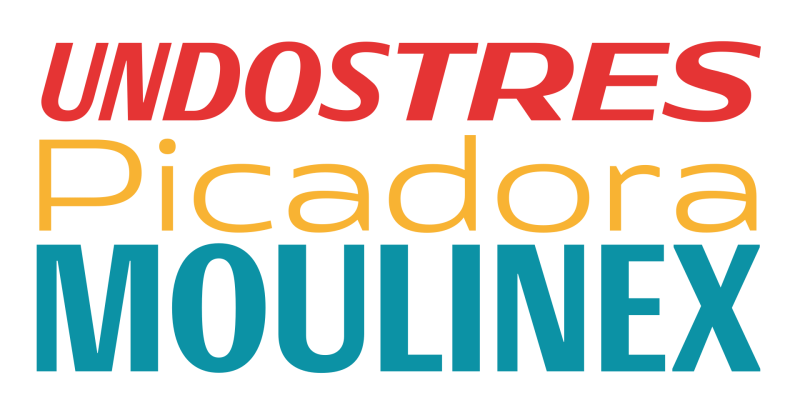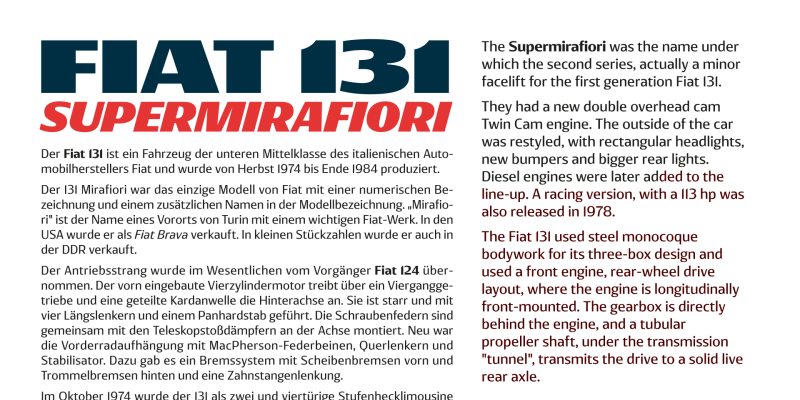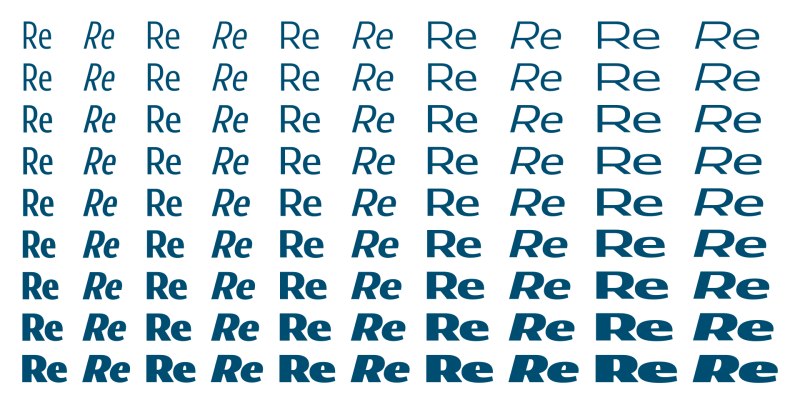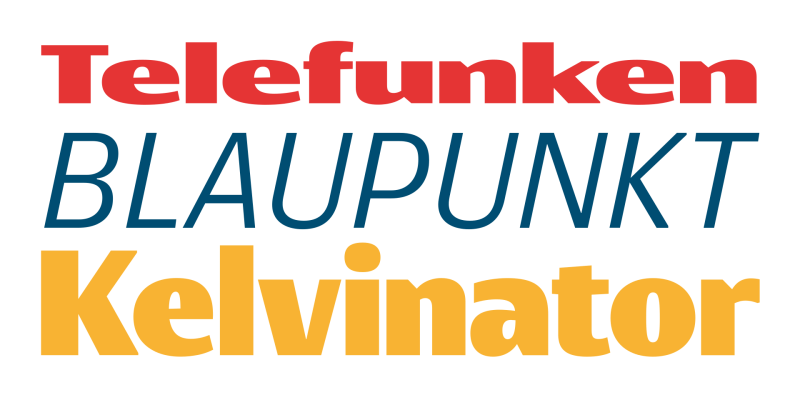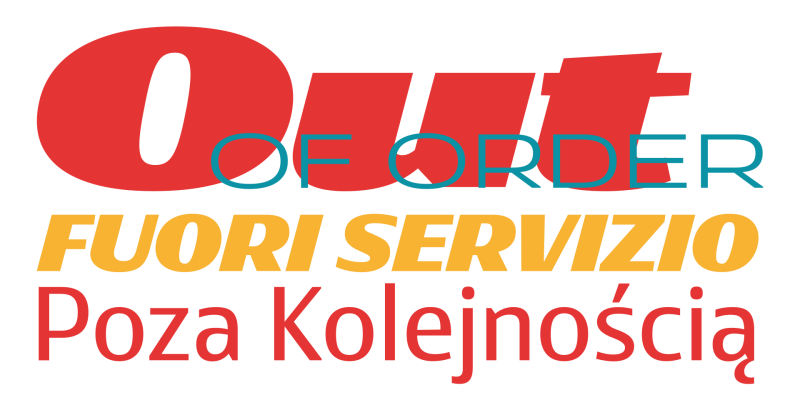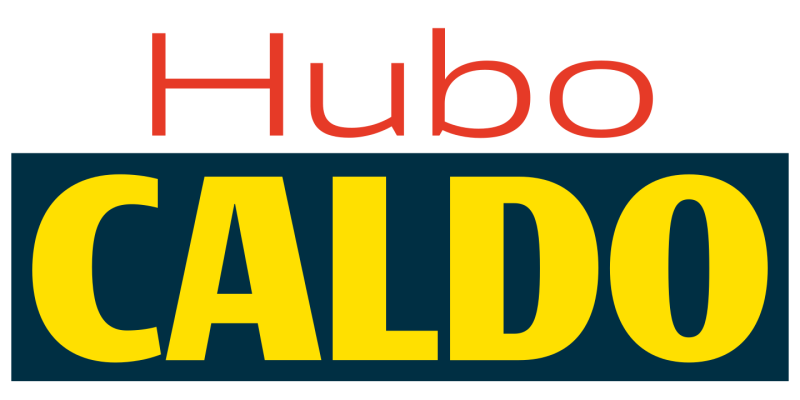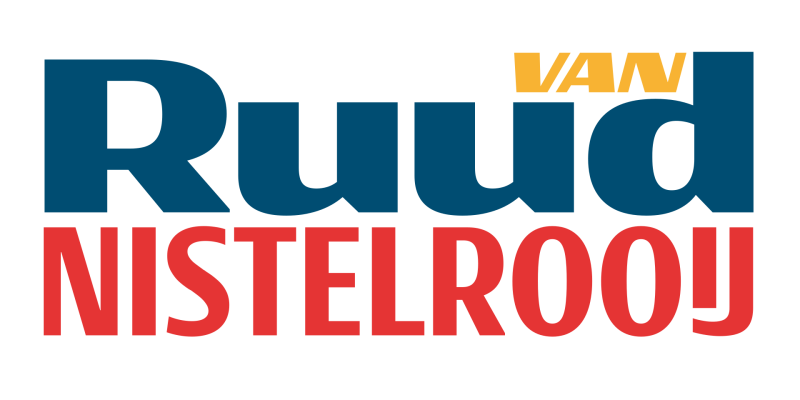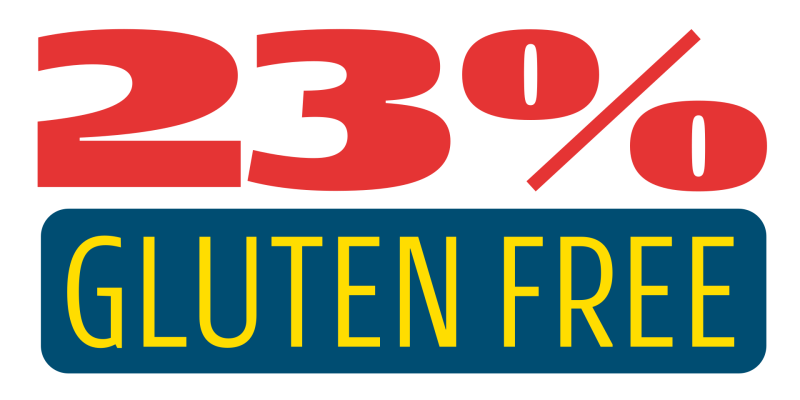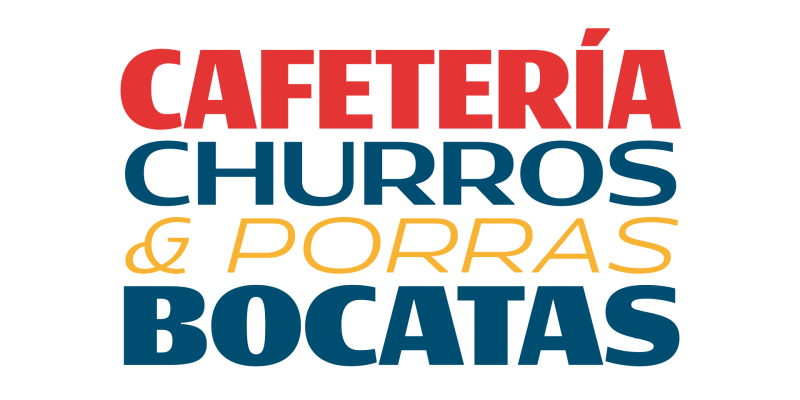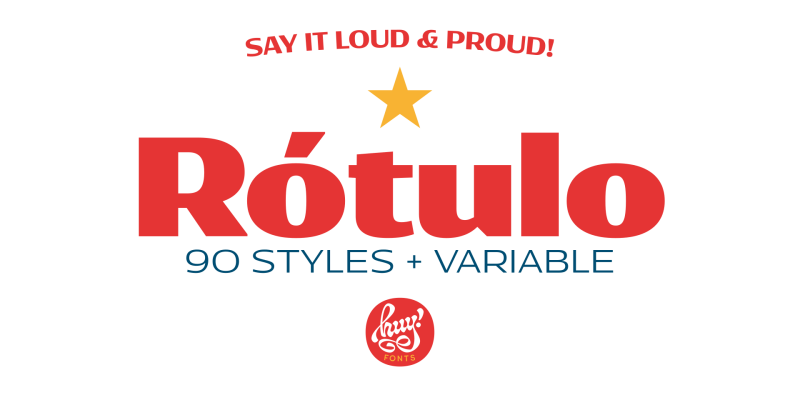
Rotulo Font Family
Rotulo is a contrasted sans family which combines the Thick & Thin signpainter’s style and some 70s feeling in a huge font family with 90 styles. A visit to an exhibitio…
Rotulo is a contrasted sans family which combines the Thick & Thin signpainter’s style and some 70s feeling in a huge font family with 90 styles.
A visit to an exhibition of Spanish movie posters by Jano was the beginning of Rótulo (Spanish for Sign) project. Classic thick & thin signpainter style was featured in many letterings of those posters, as it was a very common style in 60s and 70s Spanish design. Unfortunately, today very few Contrasted Sans are seen, something that was quite common years ago has fallen into disuse in favor of Helvetic monotony.
Rótulo recapture all that personality, with an extense range of weights and widths to be used in striking headlines and short texts.